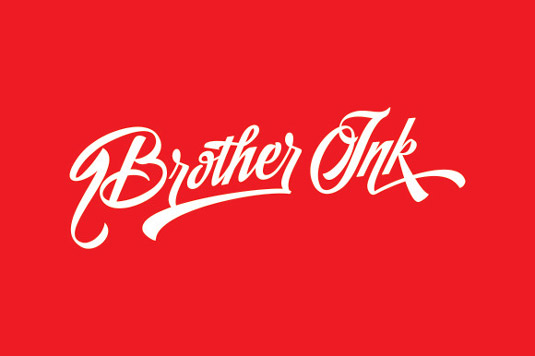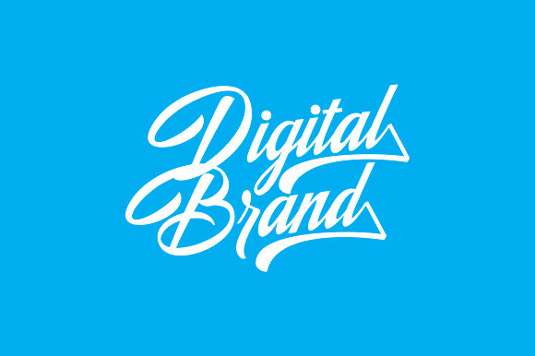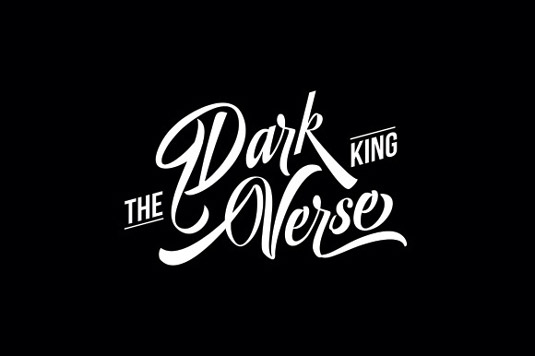
Font of the day: Home Brush
Every day we showcase the best fonts on the web. Today it's Home Brush by Vicky Mardian.
Home Brush by Vicky Mardian
Looking for a new tattoo font? Then Home Brush by designer Vicky Mardian might be just what you're after. A bold design with open type features, Home Brush is great for tattoos, logos, posters and much more.